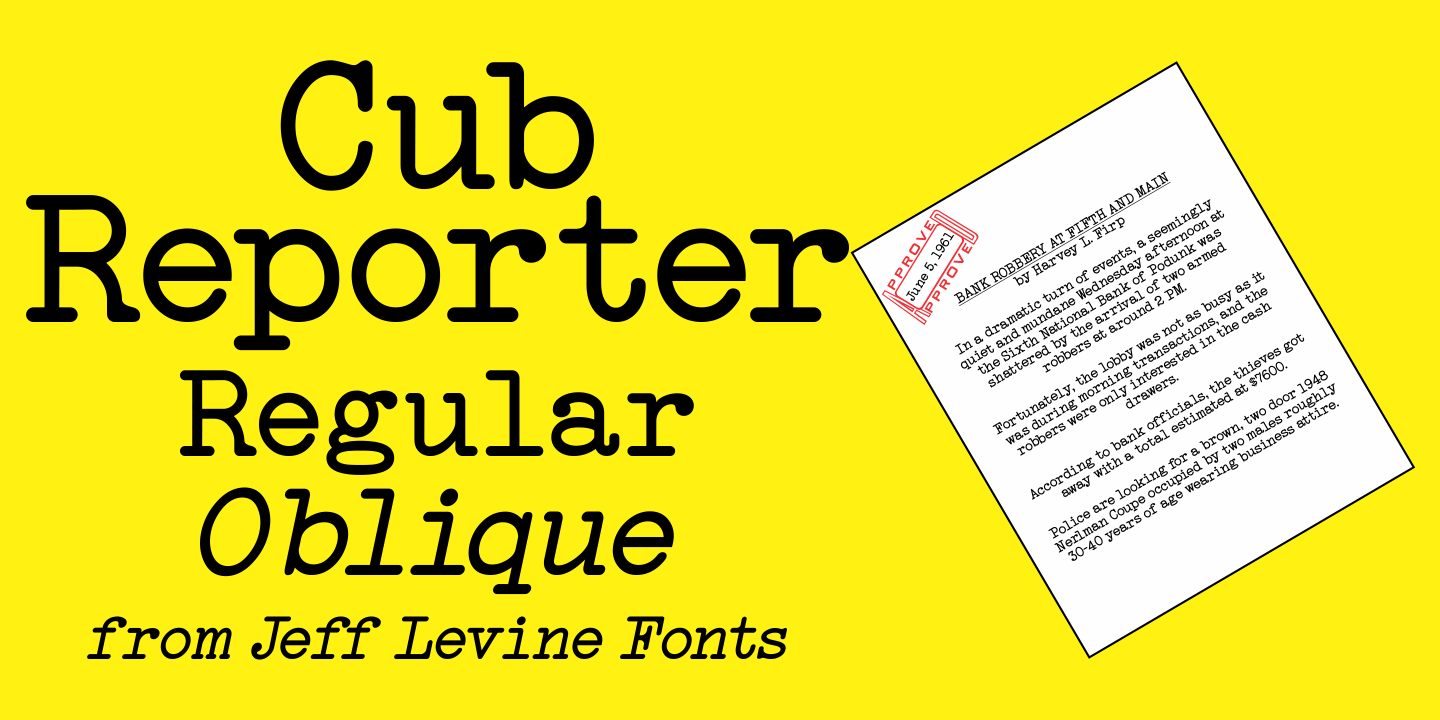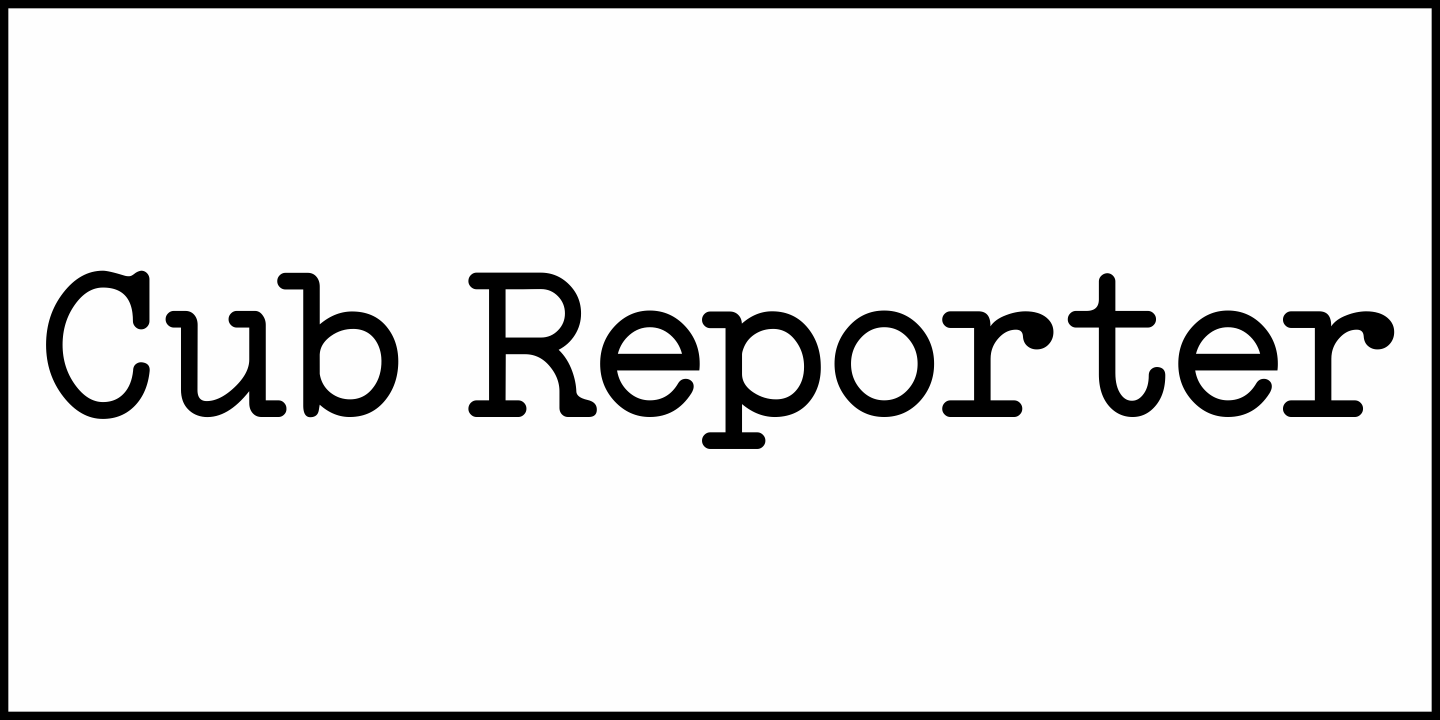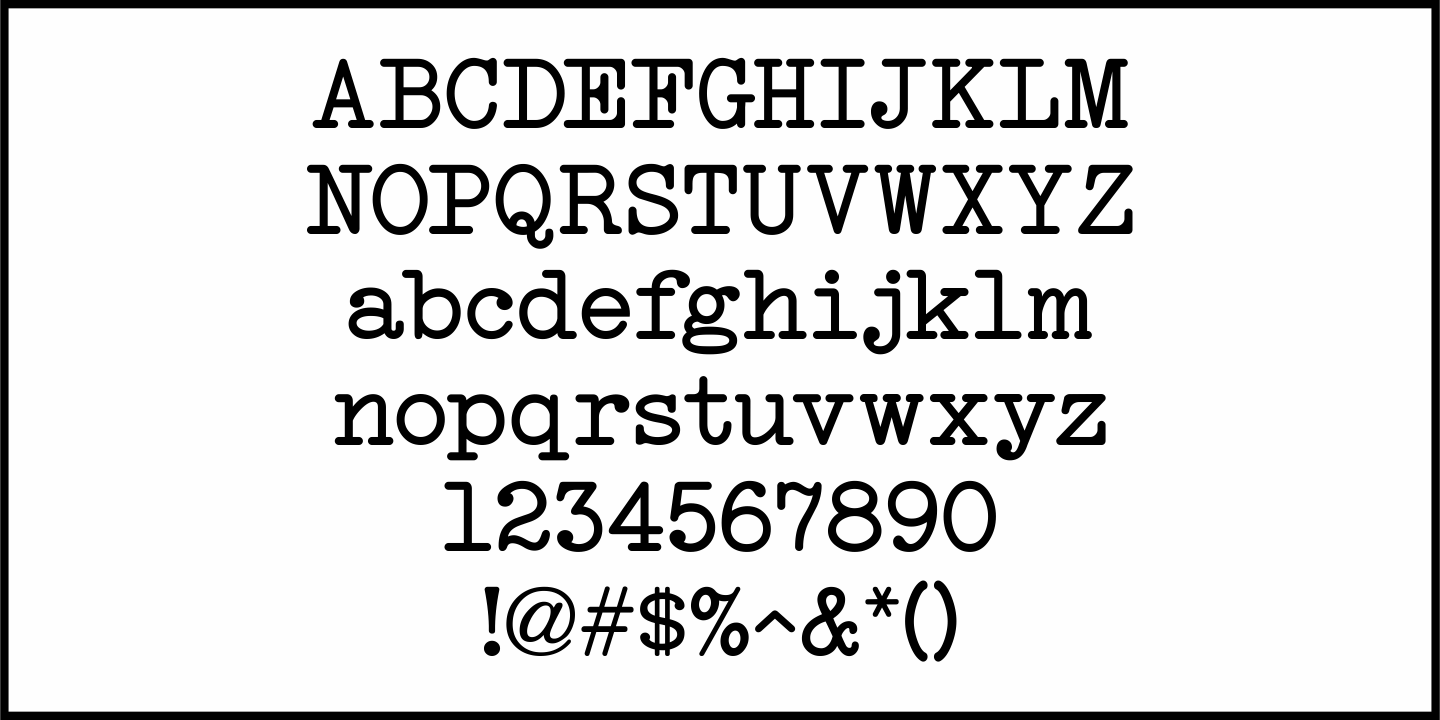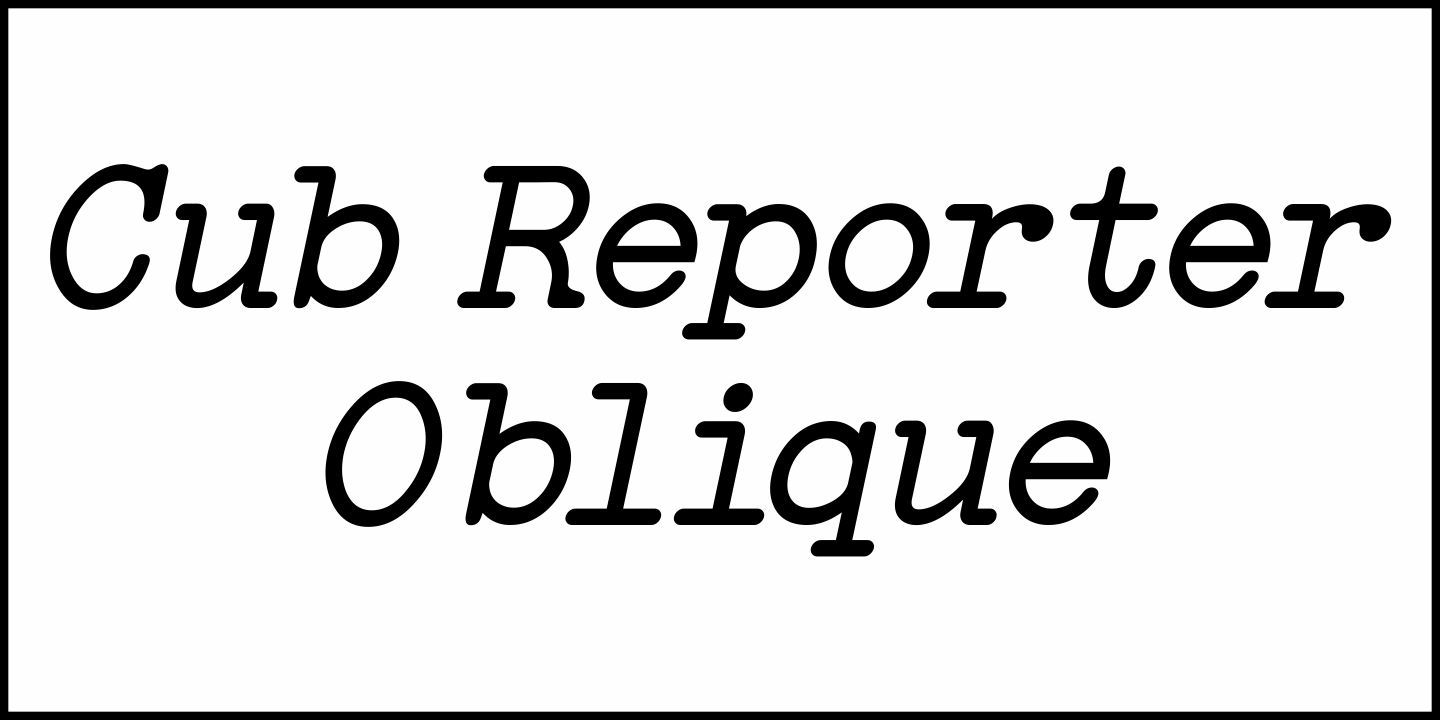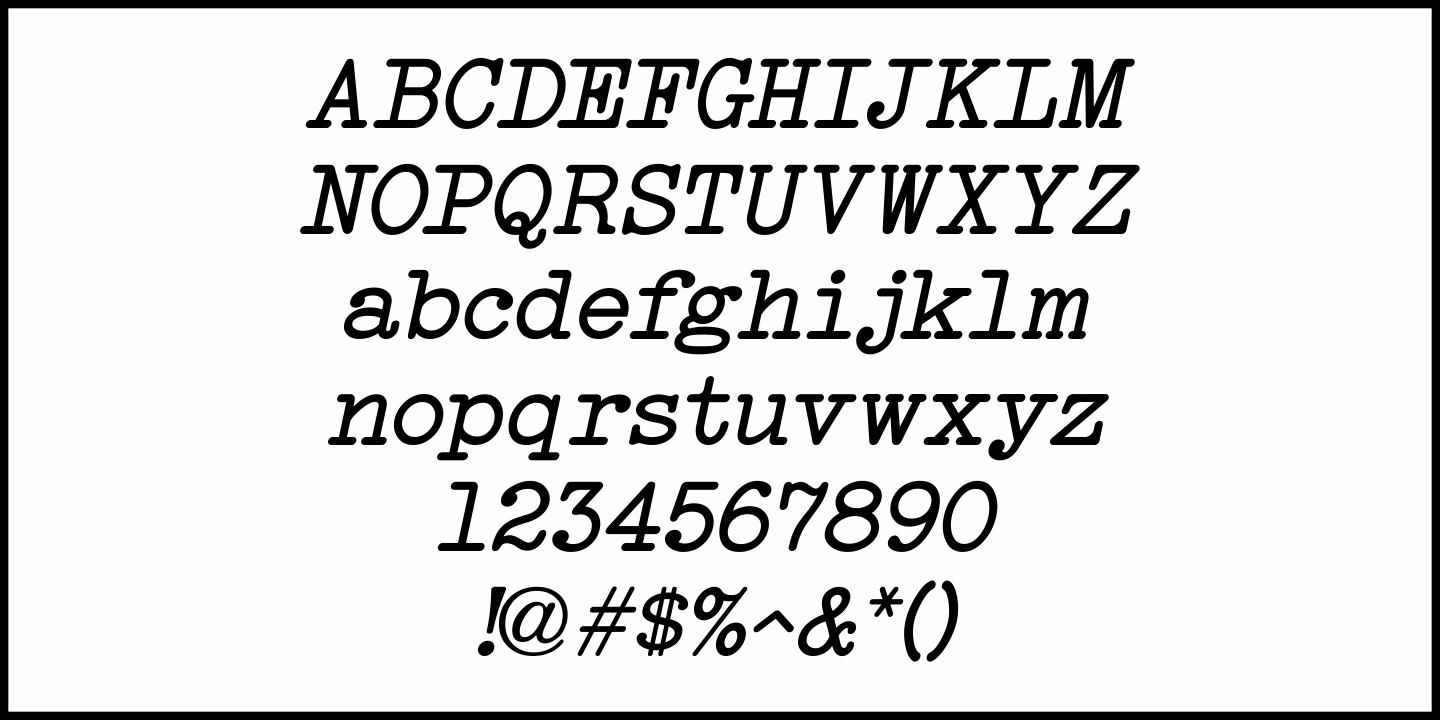
Cub Reporter
In the 1934 edition of the American Type Foundry's 'Book of American Type” is a selection of letterpress fonts which emulate typewriter faces.
One design named 'Bulletin Typewriter” served at the model for Cub Reporter JNL, and is available in both regular and oblique versions.
The font has been monospaced in order to add a more traditional typewriter look to any project.